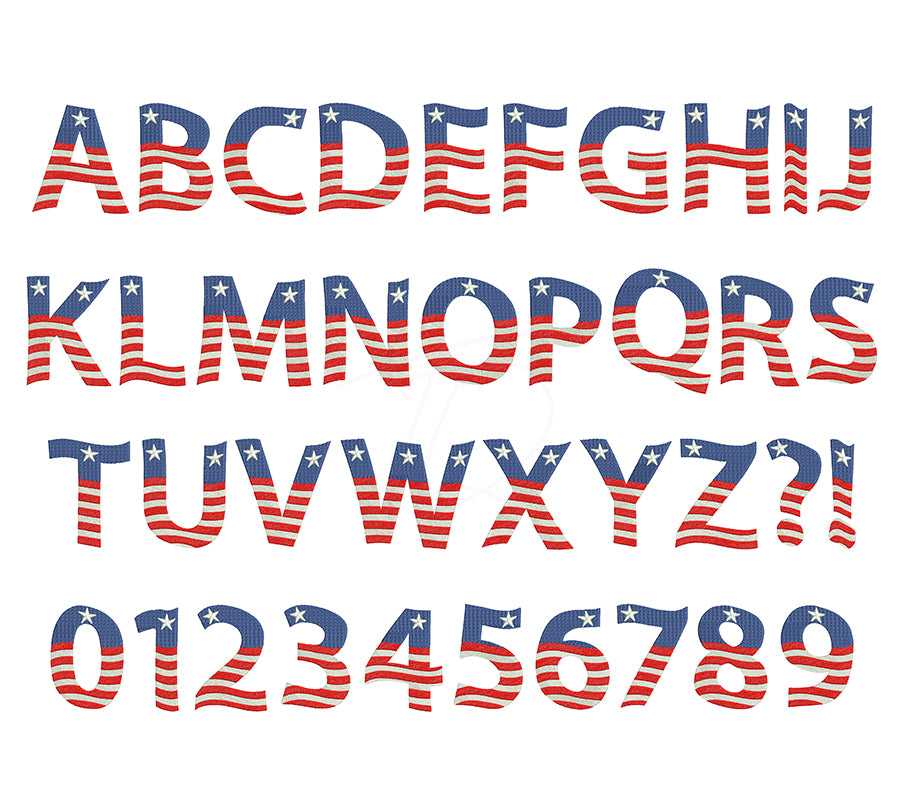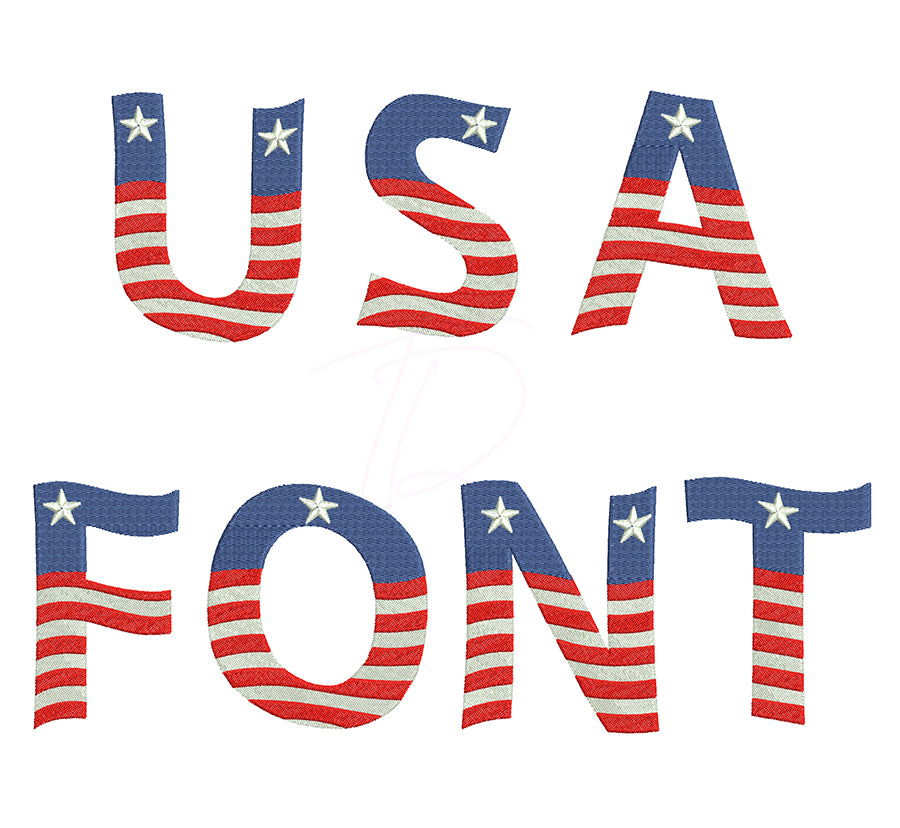
Wavy USA Flag Embroidery Font
Show your American pride with our Wavy USA Flag Embroidery Font — a bold, patriotic machine embroidery font featuring a stunning waving flag fill effect built right into every letter! 🇺🇸❤️
Perfect for patriotic apparel, hats, tote bags, Fourth of July gifts, military appreciation items, and more. Each letter is filled with a realistic wavy American flag design for a striking, eye-catching result.
- Includes full alphabet (A–Z) and numbers
- Crisp, detailed stitching that showcases the flag design beautifully